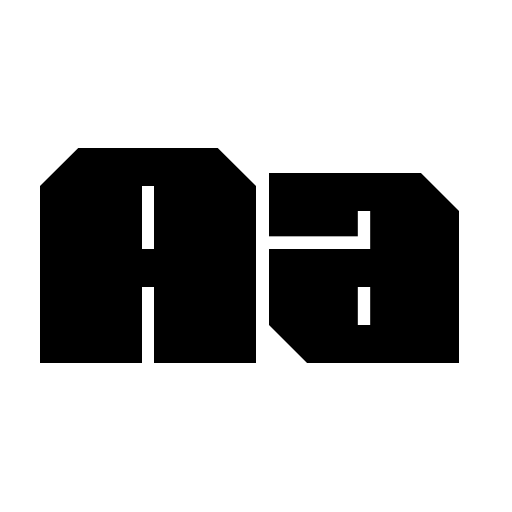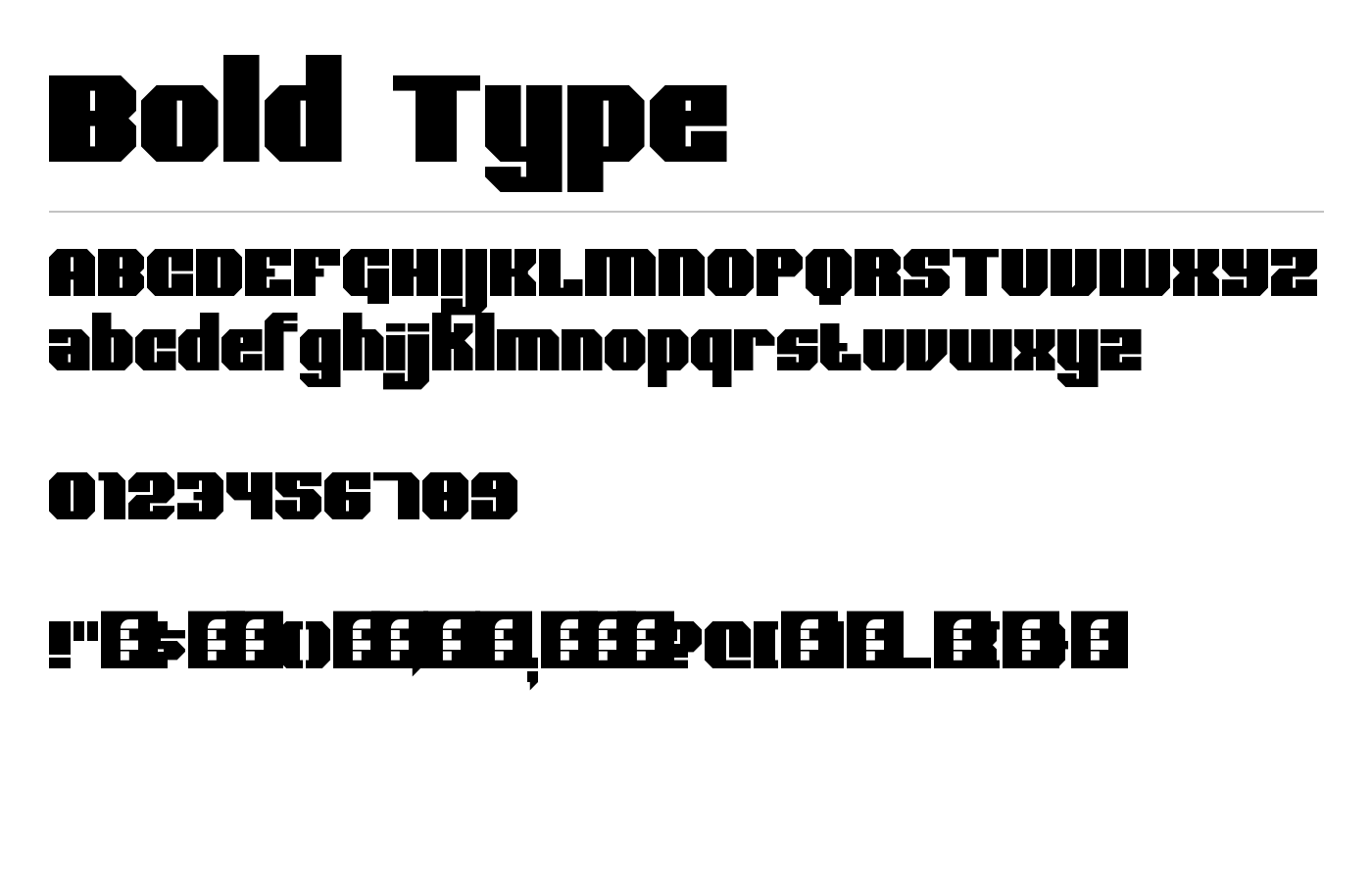
Bold Type Font is a heavy, blocky sans-serif typeface with a strong, geometric feel and sharply defined edges. Its robust weight and condensed width make it ideal for impactful headlines, logos, and designs needing a bold, modern, and industrial appearance. This font commands attention with its sturdy, no-nonsense style, perfect for branding that wants to convey strength and confidence.
Bold Type Font
About Bold Type Font
| Font family | Bold Type Font |
| Designer | cablecomputer |